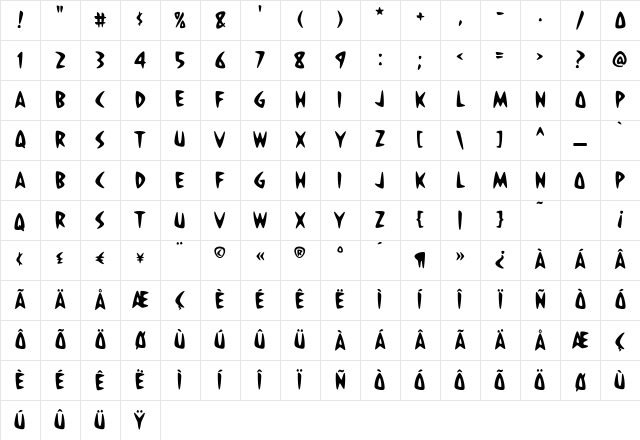
House-A-Rama-Strike Regular
Complete House-A-Rama-Strike Regular glyph index. Displaying only characters natively supported by House-A-Rama-Strike Regular font.
Design Context for House-A-Rama-Strike
House-A-Rama-Strike is a composed and adaptable typeface that performs quietly and consistently across a wide range of design contexts.